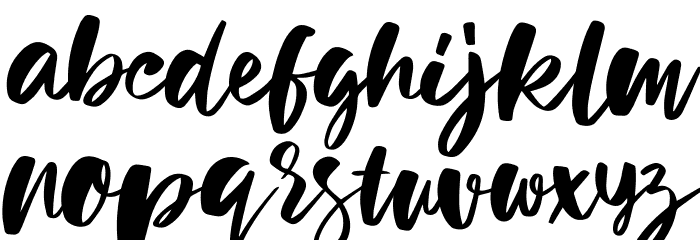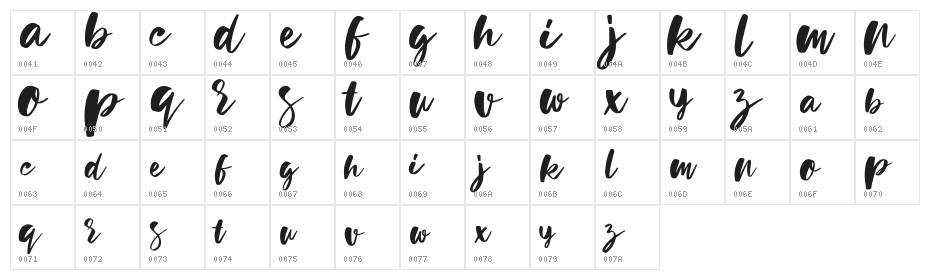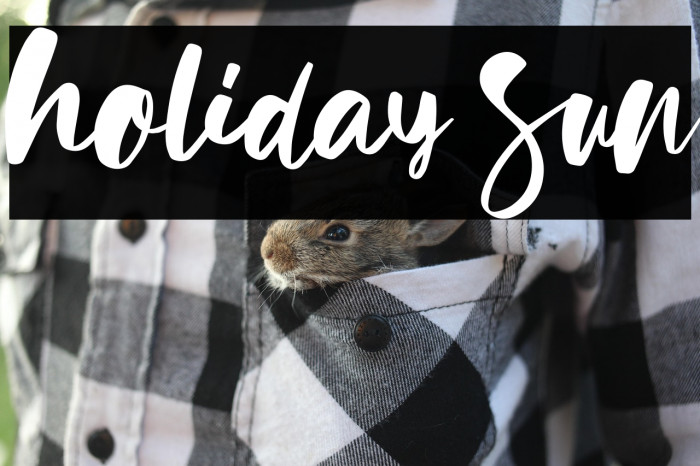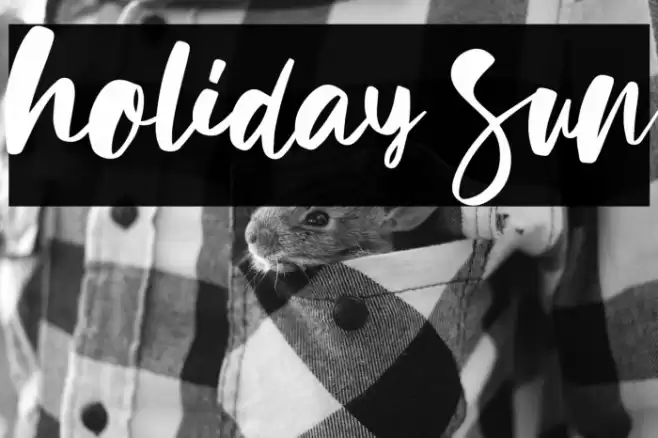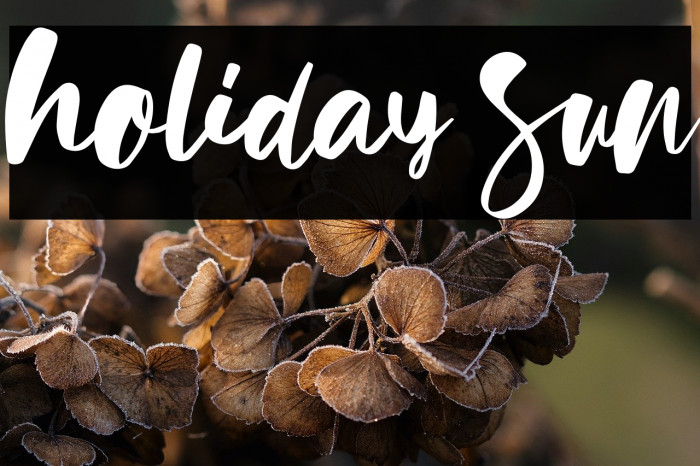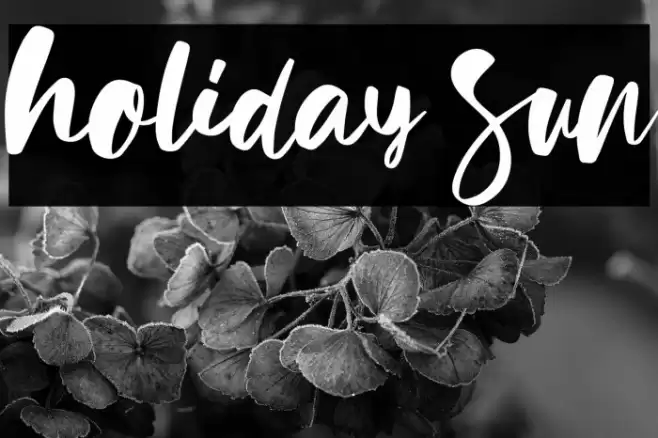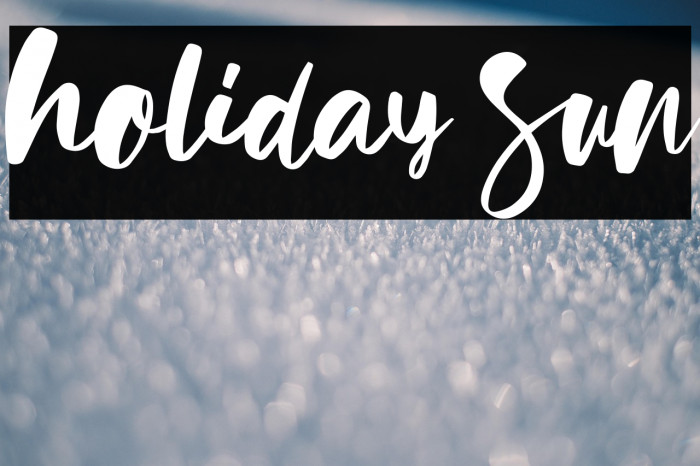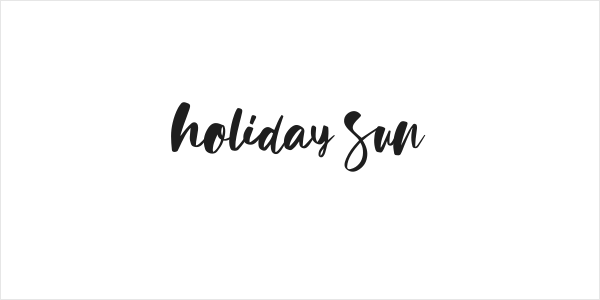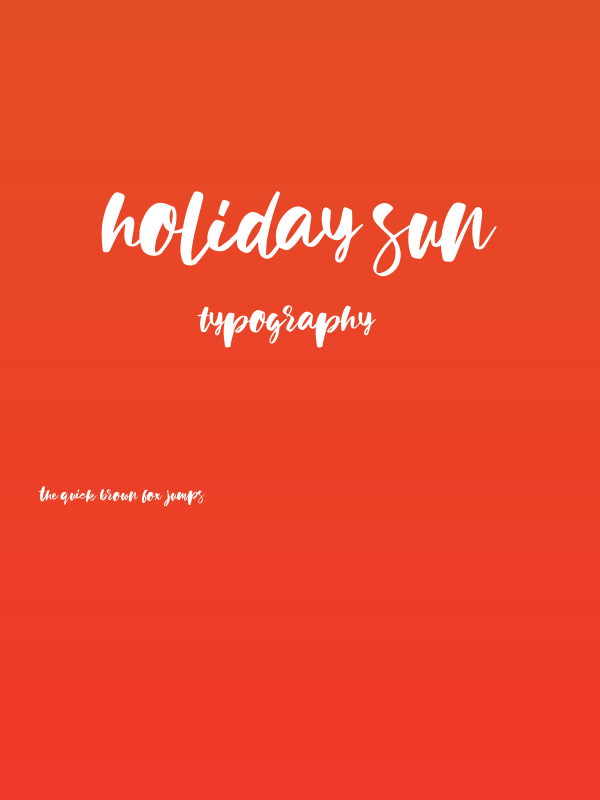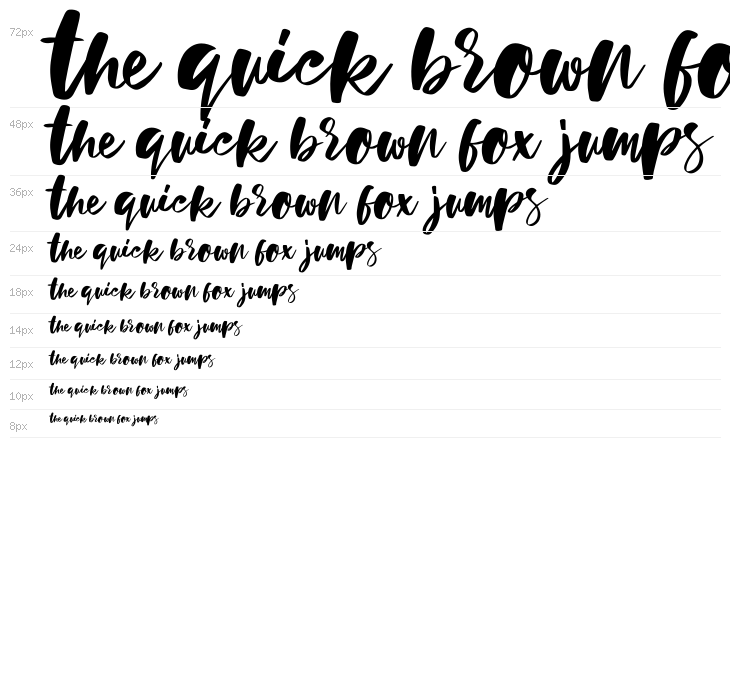
Holiday Sun Font
Holiday Sun Description
This font exudes a lively and energetic vibe with its bold, flowing script style. The letters are connected in a smooth, cursive manner, giving it a handwritten appearance. The strokes are thick and consistent, providing a strong visual impact. The font's playful curves and loops add a sense of movement and dynamism, making it ideal for projects that require a personal and artistic touch. Its boldness ensures readability while maintaining an elegant flair, suitable for creative and expressive designs.
| Proposed Projects | Ideal for greeting cards, invitations, branding, and social media graphics. |